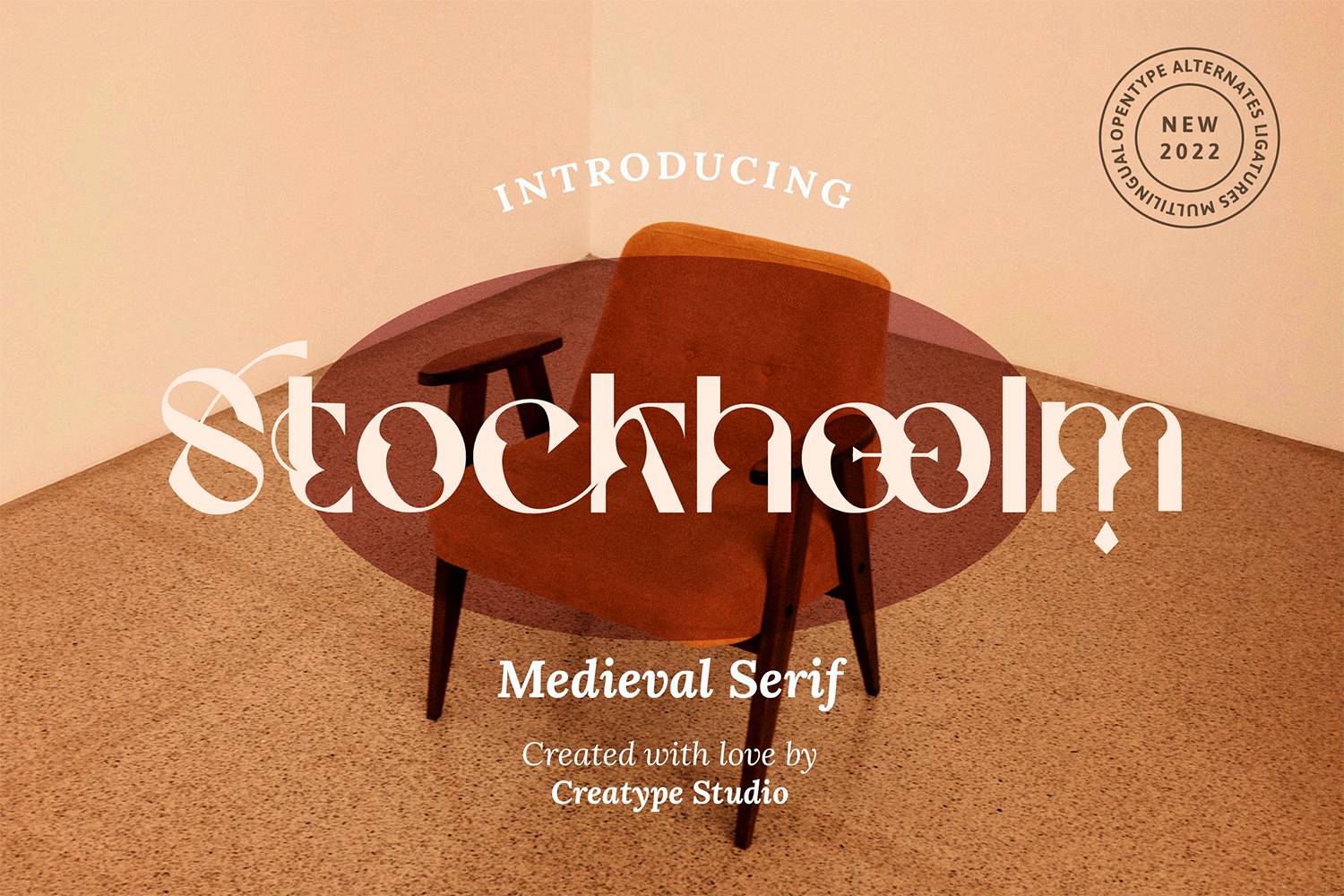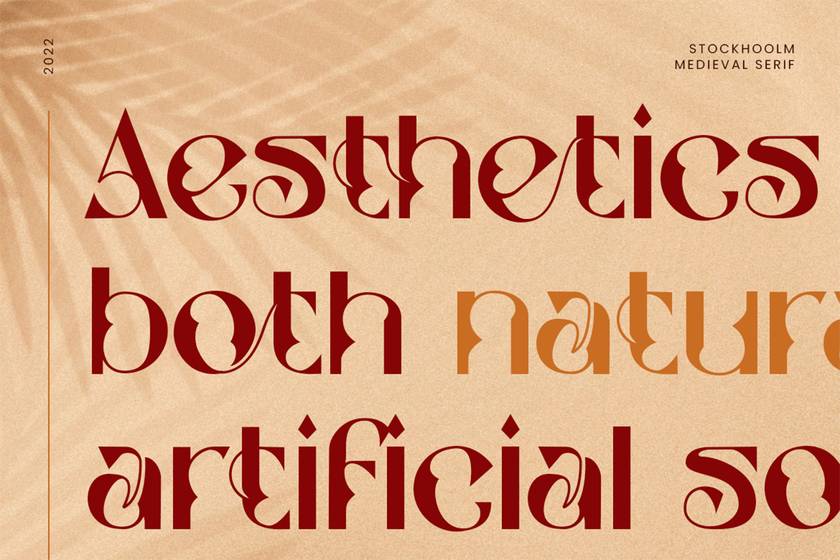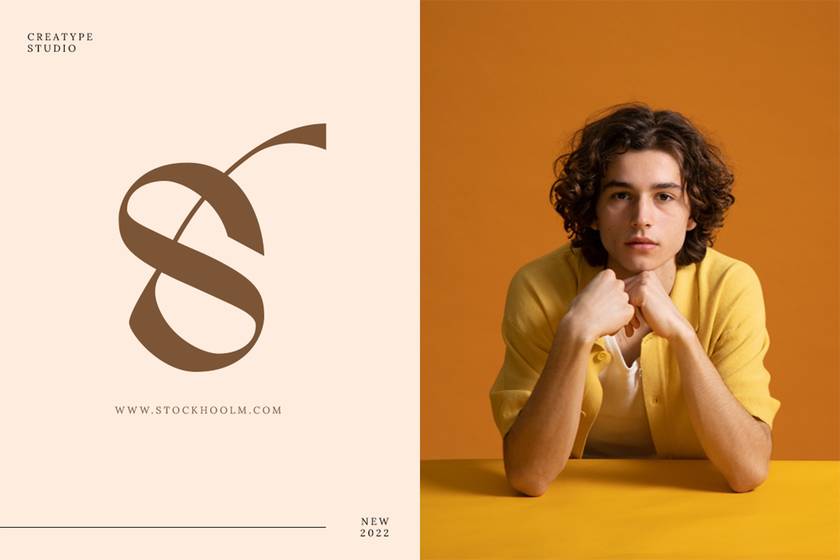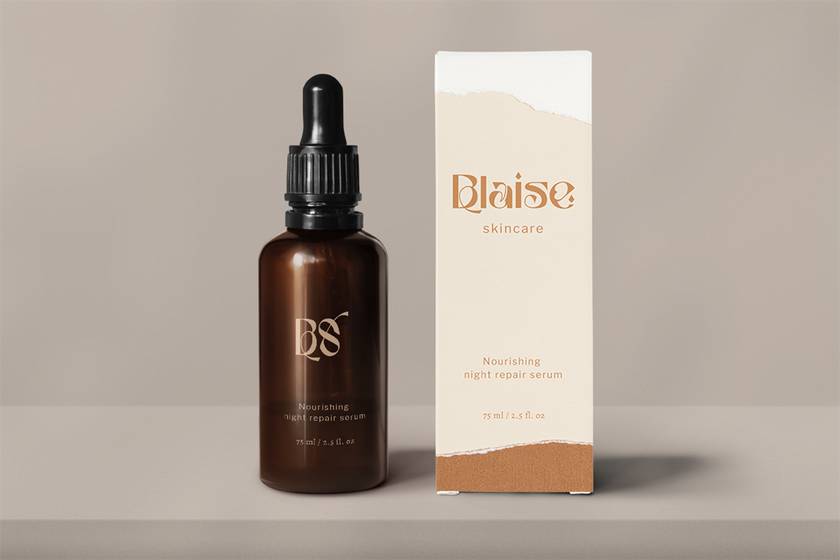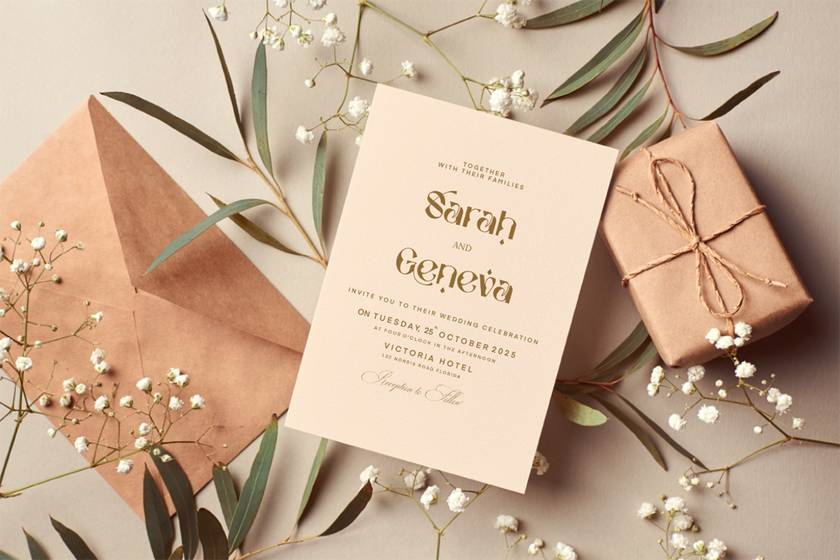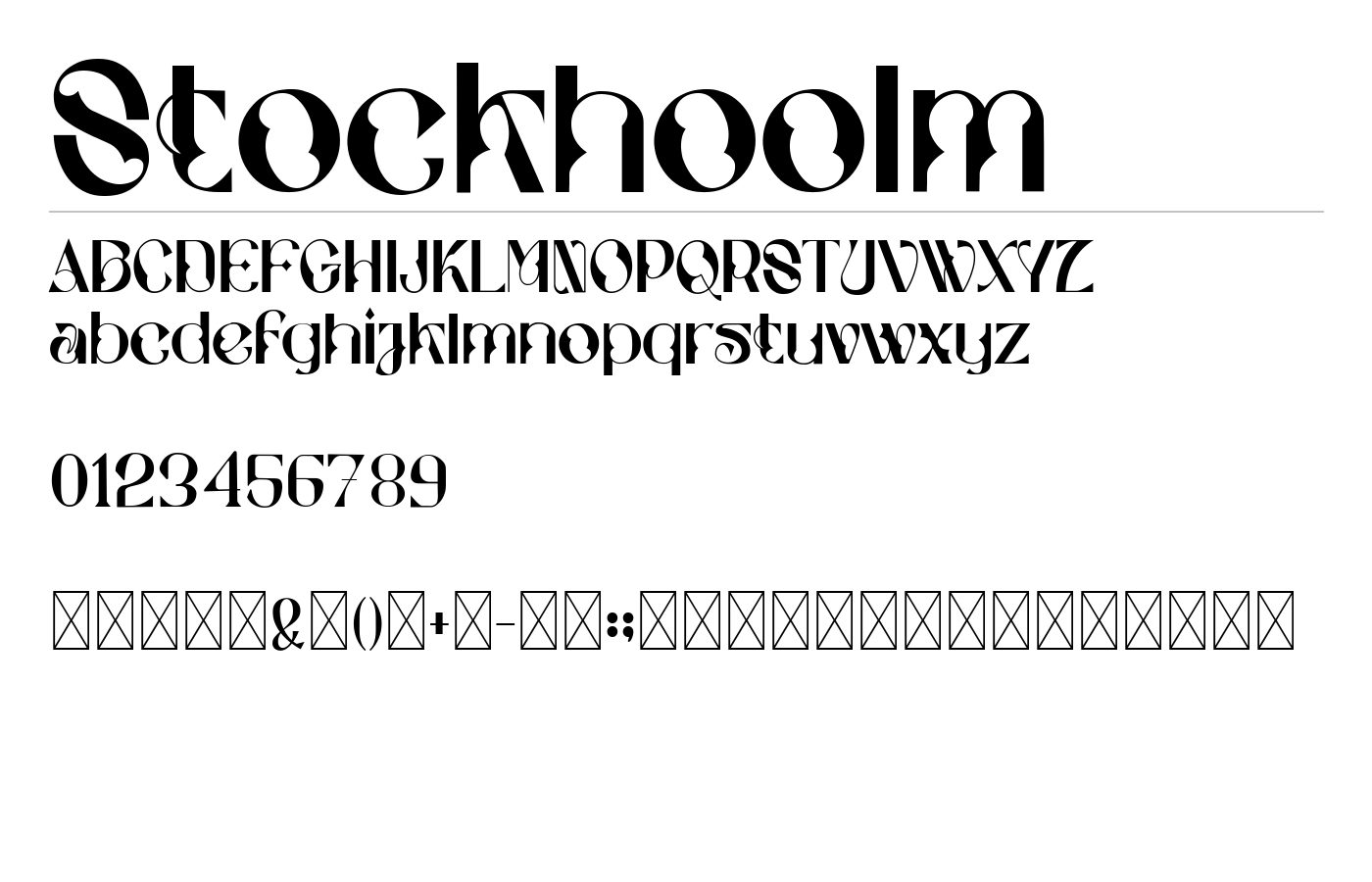
Stockhoolm is a striking serif typeface with high contrast between thick and thin strokes, featuring unique and artistic letterforms that blend geometric shapes with sharp, elegant serifs. Its distinctive style, combining a modern twist on classic serif forms with playful, almost sculptural details, makes it perfect for creative headlines, luxury branding, and editorial projects seeking a bold and sophisticated look. This font stands out in designs that aim to make a memorable statement while maintaining a refined, stylish aesthetic.
Stockhoolm Font
About Stockhoolm Font
| Font family | Stockhoolm Font |